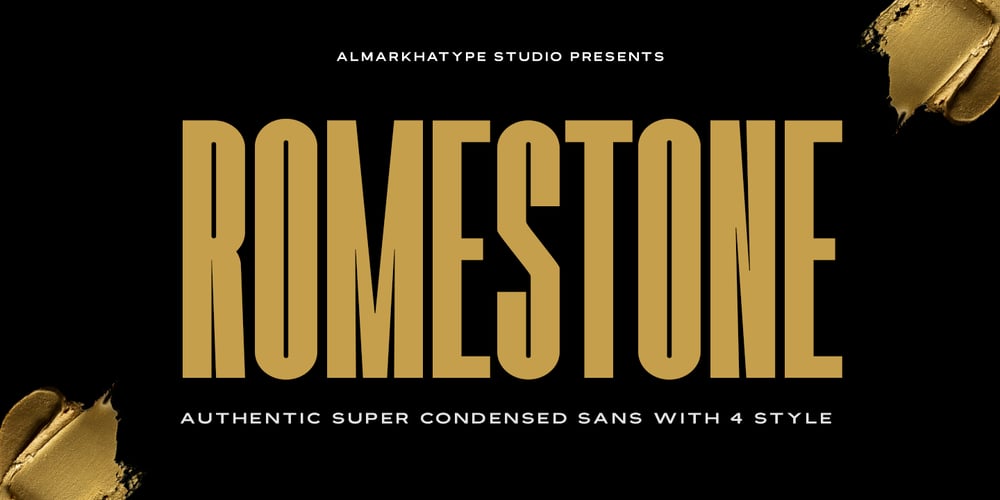
Romestone Font Family was designed by Abdul Malik Wisnu and published by Almarkha Type. Romestone contains 4 styles and family package options. Introducing our latest collection Romestone, a super bold condensed font family with 4 styles with strong and challenging nuances. Very suitable for titles, typography, clothes, magazines, brochures, packaging and much more for your design needs, making your designs more modern and professional.